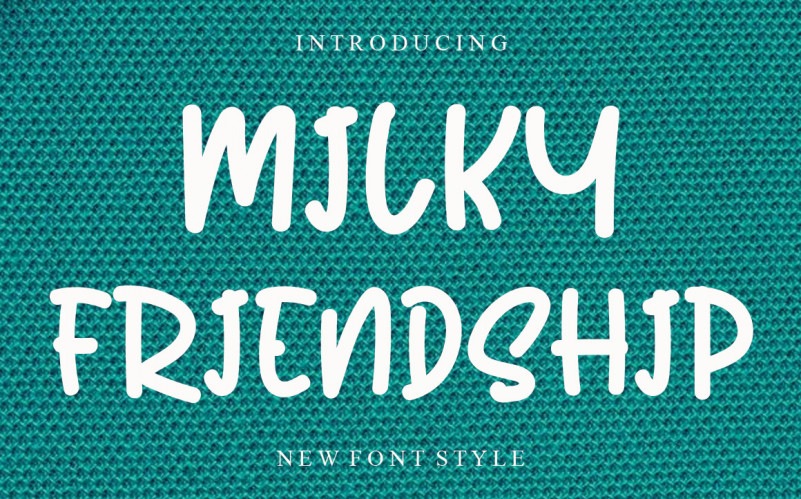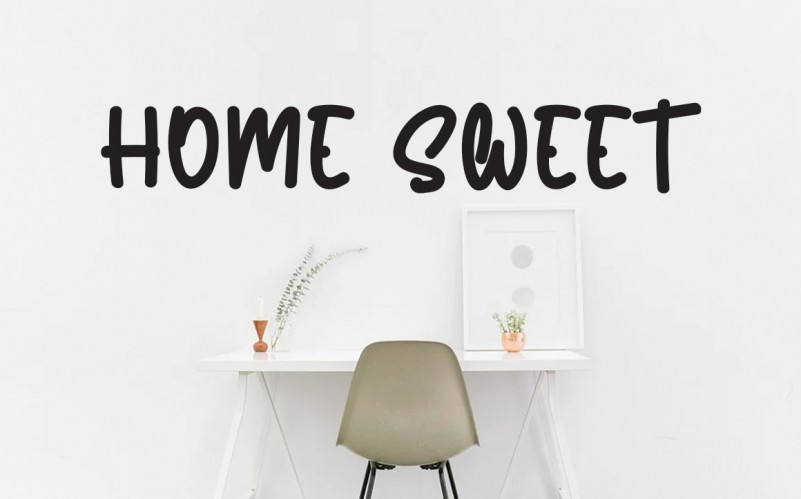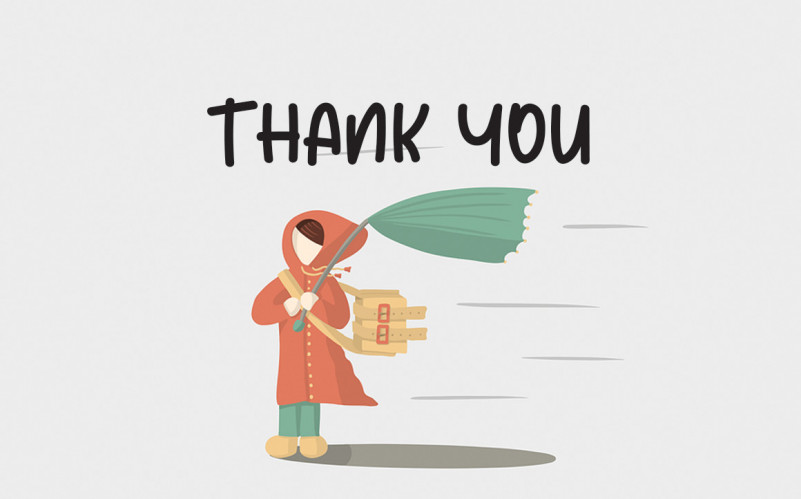
Milky Friendship Font is a unique, fun and friendly handwritten font. Whether you’re looking for a font for Instagram or a calligraphy script for a DIY project, this font will turn any creative idea into a true work of art!